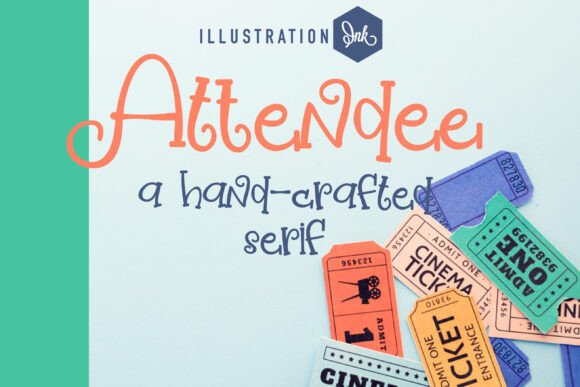
Introducing Attendee Font: A Whimsical Hand-Written Serif
In the world of typography, fonts play a crucial role in conveying the tone and personality of a message. Among the numerous font styles available, hand-crafted fonts have gained immense popularity for their unique and personalized touch. One such font that has caught the attention of designers and writers is the Attendee Font. In this article, we’ll delve into the features and benefits of this charming font, as well as explore the concept of hand-crafted fonts and their uses.
What is Attendee Font?
Attendee Font is a whimsical hand-written serif font that boasts a distinctive, curly charm. This font is meticulously designed to resemble handwriting, with a few curls and flourishes here and there. The result is a playful, yet elegant font that can add a touch of personality to any design project. The font comes in two versions: a regular version and a light version, providing flexibility for various design applications.
The Concept of Hand-Crafted Fonts
A hand-crafted font, also known as a handwritten font, is a typeface that is designed to mimic the look of handwriting. These fonts are often created using traditional calligraphy or lettering techniques, which involve writing each letter and character by hand. The goal of a hand-crafted font is to replicate the imperfections and uniqueness of handwriting, creating a sense of warmth and personality.
Hand-crafted fonts can range from formal and elegant to informal and playful, making them suitable for a wide range of applications. They are commonly used for:
- Invitations and greeting cards: Handwritten fonts add a touch of warmth and sincerity to special occasions.
- Branding and packaging: Hand-crafted fonts can help create a unique and memorable brand identity.
- Digital and print media: Handwritten fonts can add a personal touch to blog posts, articles, and advertisements.
- Art and design projects: Hand-crafted fonts can be used to create eye-catching and creative visual displays.
Characteristics of Hand-Crafted Fonts
Hand-crafted fonts often exhibit certain characteristics that set them apart from other font styles. Some common features include:
- Unique letterforms: Handwritten fonts often have distinctive letter shapes and irregularities that give them a personal touch.
- Variations in line width: Hand-crafted fonts may feature varying line widths, which create a sense of movement and fluidity.
- Flourishes and curls: Many hand-written fonts include decorative flourishes and curls that add to their whimsical charm.
- Imperfect consistency: Hand-crafted fonts often intentionally include slight inconsistencies and imperfections to mimic the natural variations of handwriting.
Benefits of Using Hand-Crafted Fonts
Hand-crafted fonts offer several benefits for designers, writers, and marketers. Some of the advantages of using hand-written fonts include:
- Emotional connection: Handwritten fonts can create an emotional connection with the reader, making the message feel more personal and sincere.
- Unique identity: Hand-crafted fonts can help establish a unique brand identity or tone, setting you apart from others.
- Visual appeal: Handwritten fonts can add visual interest and creativity to your designs, making them more engaging and attention-grabbing.
- Flexibility: Hand-crafted fonts can be used in a variety of contexts, from digital media to print materials.
Using Attendee Font in Your Design Projects
Attendee Font is a versatile font that can be used in a variety of design projects. Here are some ideas to get you started:
- Wedding invitations and stationery: The whimsical curls and flourishes of Attendee Font make it perfect for wedding invitations, save-the-date cards, and other wedding stationery.
- Branding and packaging: Use Attendee Font to create a unique and memorable brand identity for your business or product.
- Social media graphics: Add a personal touch to your social media graphics, such as Instagram posts and Facebook headers, with Attendee Font.
- Blog and article headers: Use Attendee Font to create eye-catching headers and titles for your blog posts and articles.
Tips for Working with Hand-Crafted Fonts
When working with hand-crafted fonts like Attendee Font, here are some tips to keep in mind:
- Use them sparingly: Handwritten fonts can be attention-grabbing, but they can also be overwhelming if overused. Balance them with other font styles for optimal impact.
- Pair them with complementary fonts: Combine hand-crafted fonts with clean, sans-serif fonts to create visual contrast and hierarchy.
- Adjust font sizes and line spacing: Experiment with font sizes and line spacing to create a clear and readable design.
- Consider legibility: Ensure that your hand-crafted font is legible, especially for body text and longer passages.
In conclusion, Attendee Font is a charming hand-written serif font that can add a touch of personality and whimsy to your design projects. Hand-crafted fonts like Attendee Font offer a unique and personalized touch, making them perfect for a variety of applications. By understanding the characteristics and benefits of hand-crafted fonts, you can harness their creative potential and take your designs to the next level.